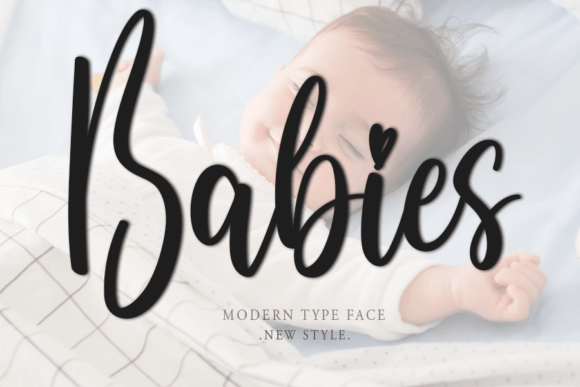
The Babies Font Download is a gorgeous handwritten script designed to bring elegance, warmth, and creativity to your projects. With its smooth curves and stylish handwritten details, this font makes every design feel more personal and inviting. Whether you are designing invitations, packaging, or social media content, Babies delivers a touch of beauty and charm.
A Gorgeous Script with Curvy Elegance
The Babies script font blends delicate handwritten strokes with an elegant flow. As a result, it feels refined yet approachable. Furthermore, it adapts seamlessly across different creative needs, from small cards to bold magazine covers.
Handwritten fonts always bring emotion to special moments. The Babies Font is perfect for wedding invitations, birthday notes, thank you cards, and seasonal greetings. Because of its elegant curves, each design feels polished and heartfelt. In addition, it makes your stationery look romantic and unique.
Branding and Logo Design with Babies Font
Typography shapes the personality of a brand. The Babies handwritten font is excellent for boutique logos, product packaging, and advertising campaigns. Its sweet handwritten charm helps businesses appear professional while staying warm and friendly. Therefore, it is well-suited for brands in fashion, lifestyle, or creative industries.
Posters, Magazines, and Creative Displays
The Babies Font Download also works beautifully for posters, banners, book titles, and editorial layouts. It keeps its clarity while adding a graceful handwritten touch. Consequently, it is a reliable choice for both small and large-scale projects.
In the online world, fonts must capture attention while remaining readable. The Babies typeface integrates easily into Instagram graphics, Pinterest boards, YouTube thumbnails, and blogs. Because of its stylish handwritten design, it ensures digital projects feel modern and engaging.
Why Designers Choose Babies Typeface
Designers prefer fonts that balance charm with usability. Many handwritten fonts can be creative but difficult to read, while the Babies handwritten script keeps its elegance while staying clear. This makes it dependable for professionals and hobbyists. Moreover, its timeless handwritten style ensures it will stay relevant in any project.